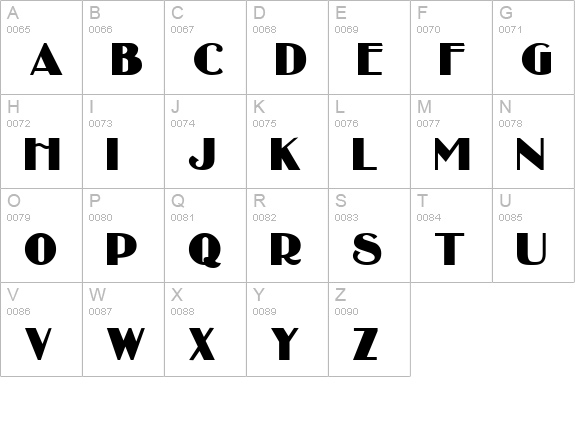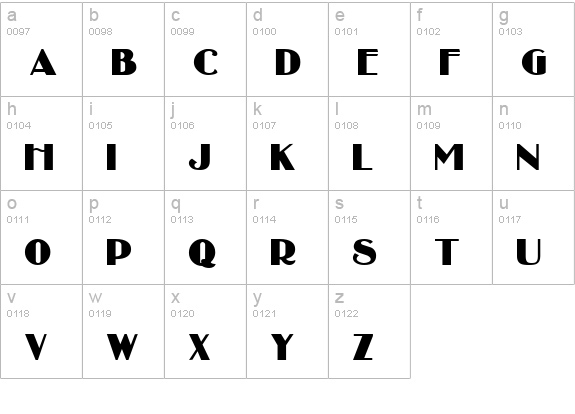
Broadbay Normal is the standard, neutral variant in the Broadbay typeface family \xE2\x80\x94 well suited to general body text, paragraphs, and standard typographic work.
Broadbay Normal is a versatile and sophisticated font that exudes elegance and professionalism. With its clean lines and balanced proportions, this font is perfect for a wide range of design projects, from logos and branding to headlines and body text. The smooth curves and sharp edges of Broadbay Normal create a modern and refined look, making it a great choice for both print and digital media. Its legibility and readability make it suitable for various applications, ensuring that your message is clear and impactful. One of the best things about Broadbay Normal is that it is freely available to download at FontsMarket.com. This means that you can easily access this font and use it in your projects without any restrictions. Whether you are a professional designer or an aspiring creative, you can enjoy the benefits of this high-quality font at no cost. Broadbay Normal is designed to be versatile and adaptable, allowing you to create unique and eye-catching designs. Its wide range of weights and styles provide you with endless possibilities for customization, ensuring that your designs stand out from the crowd. So, if you are looking for a sleek and modern font that is freely available to download, look no further than Broadbay Normal. Head over to FontsMarket.com and start exploring the endless possibilities this font has to offer. Whether you are designing a website, creating a brochure, or working on a branding project, Broadbay Normal is the perfect choice to elevate your designs to the next level.